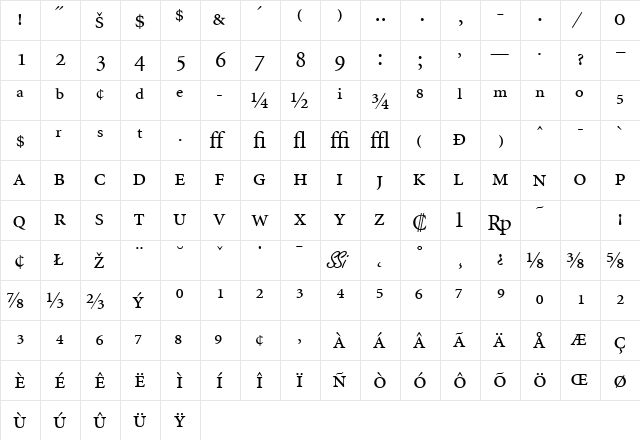
AtlantixProSSK Regular
Design Context for AtlantixProSSK Typeface
AtlantixProSSK offers clean, dependable letterforms without strong stylistic allegiance, making it a practical choice for designers who need flexibility.